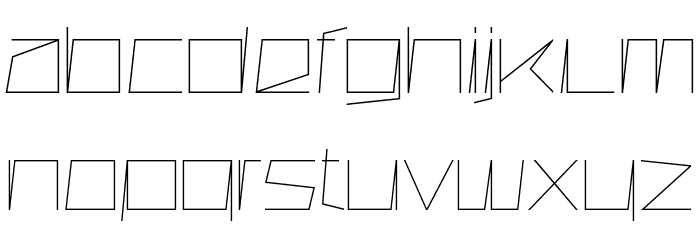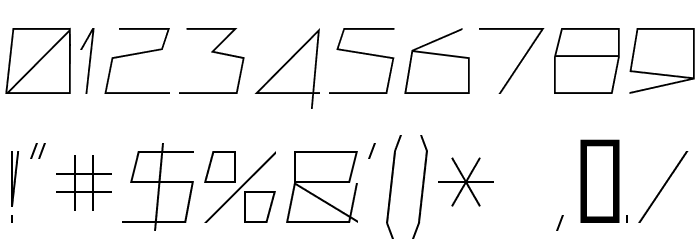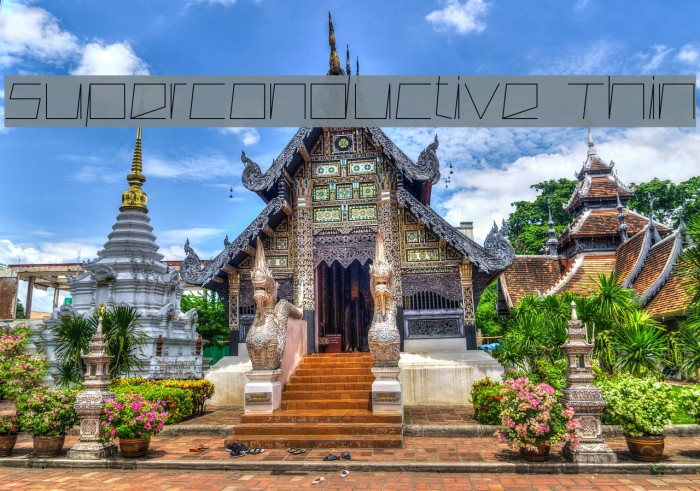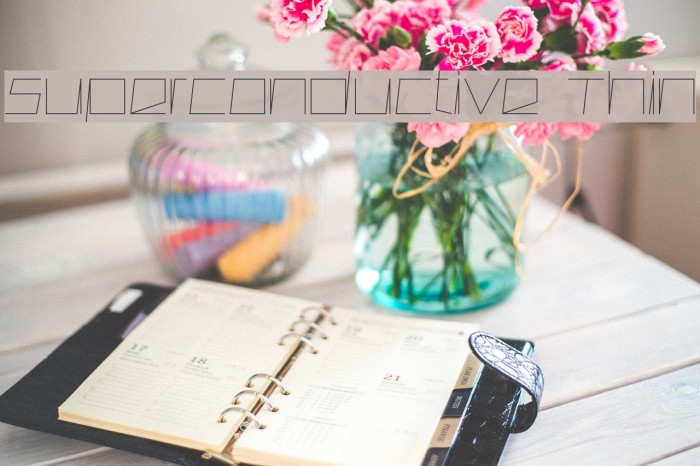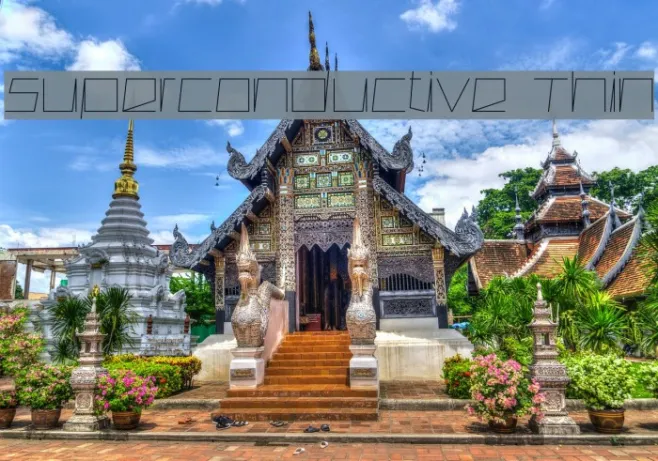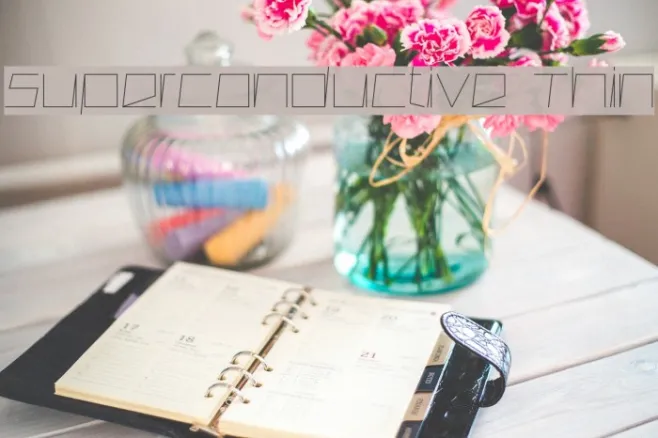
Superconductive Thin Font
This font features a highly geometric and angular design, characterized by its thin, precise lines and sharp angles. Each character is constructed with a minimalist approach, emphasizing straight lines and acute angles, giving it a futuristic and technical appearance. The uppercase and lowercase letters maintain a consistent style, with the lowercase slightly smaller but equally angular. The numerals follow the same design principles, ensuring uniformity across the font. Special characters are also designed with the same thin, angular lines, making them cohesive with the rest of the character set. This font's unique style makes it stand out, suitable for projects that require a modern and edgy look.
A thin, angular, and geometric font with a futuristic and technical style.
- Proposed Projects: Ideal for technology branding, modern art posters, sci-fi themed designs, and innovative product packaging.
- Overall Style: Futuristic